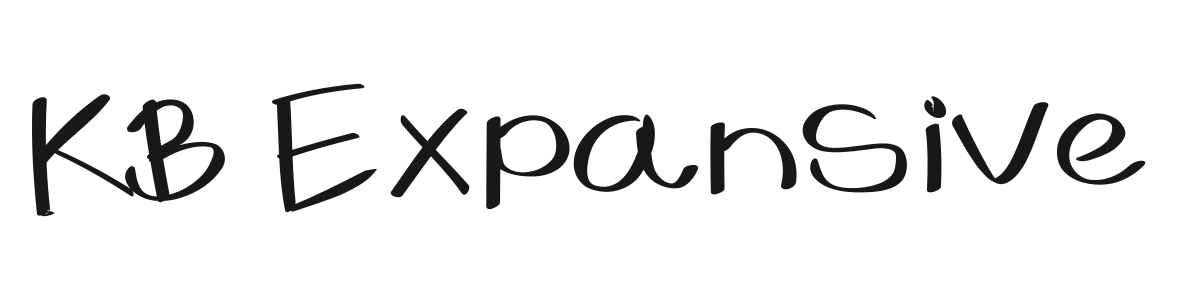
KB Expansive
KB Expansive is a casual handwritten face by Khrys Bosland with wide, marker-style letterforms that feel loose and unhurried. The strokes carry a playful, slightly quirky energy, like notes scrawled on a whiteboard by someone with good penmanship and a sense of humor. Works well for headlines, greeting cards, and informal branding where friendliness matters more than precision.